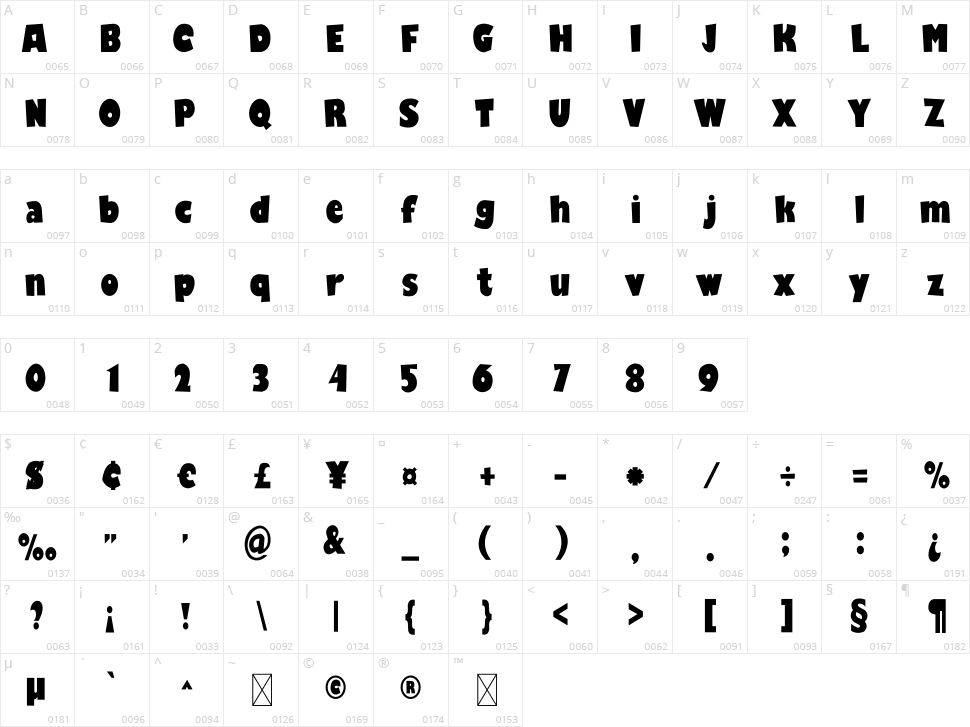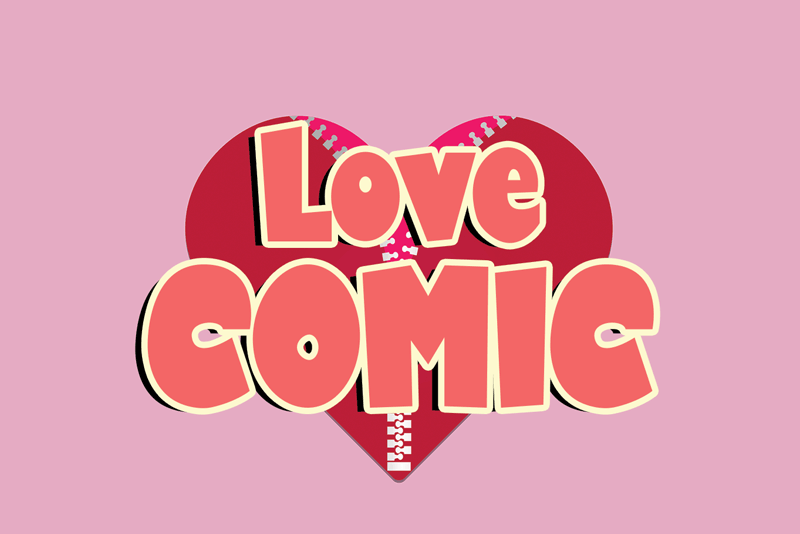
Love Comic
Note of the author Love Comic is a bold and cool display font that looks modern and friendly. Add this chunky font to your creative ideas, and notice how it makes them stand out!
Designer Name: Erik Studio